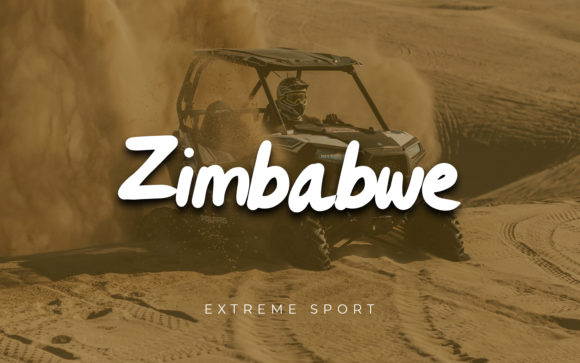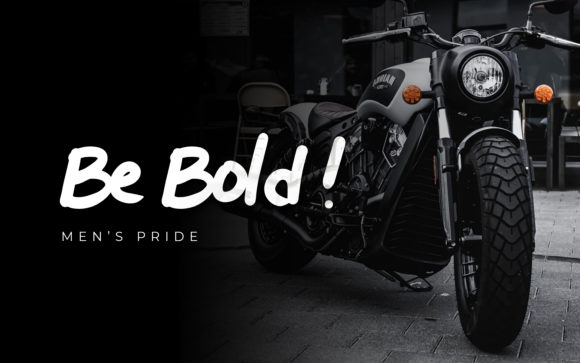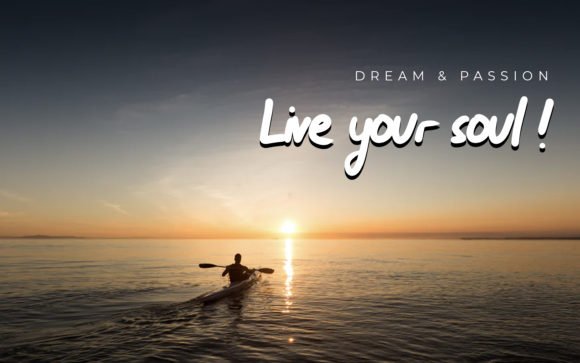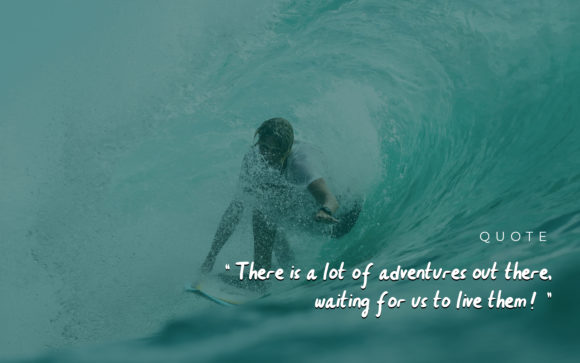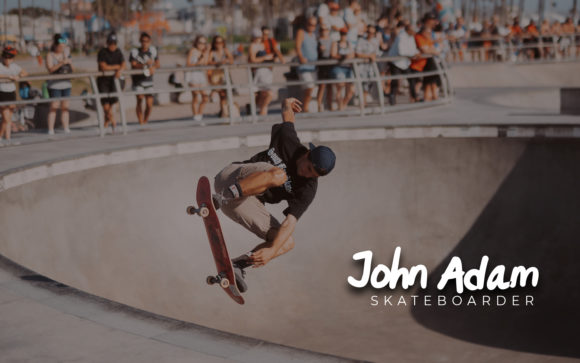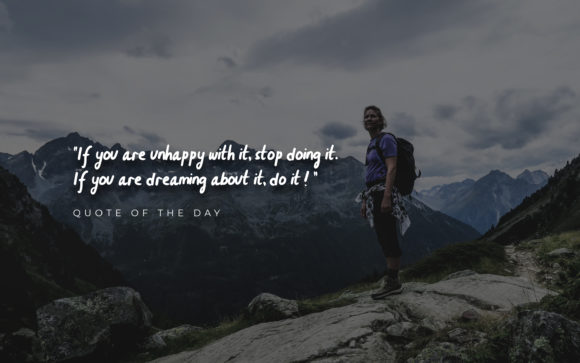
Introduction to Hello Finger Font
Hello Finger is a casual and relaxed handwritten font.
Its sweet and full of life style makes this font a wonderful choice for brightening up your designs .